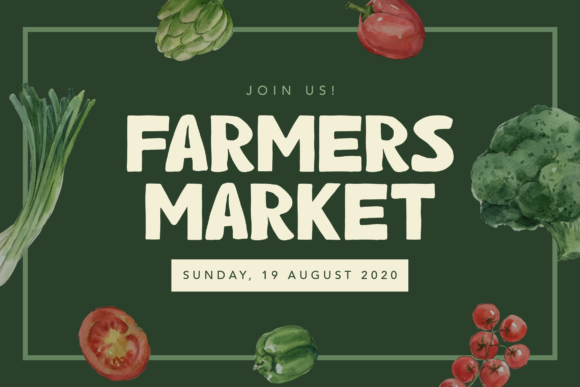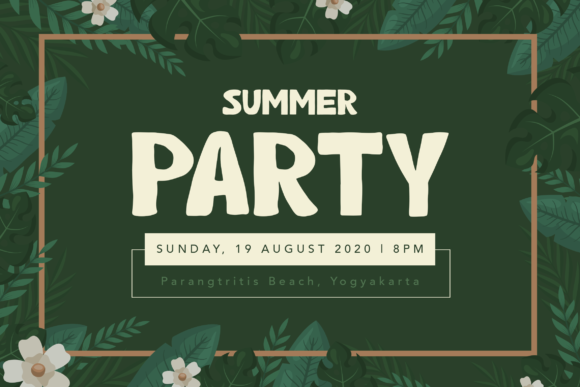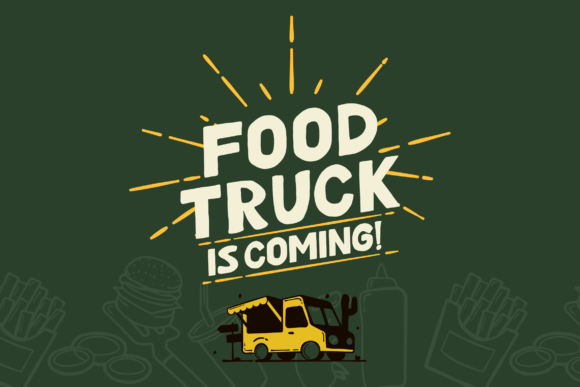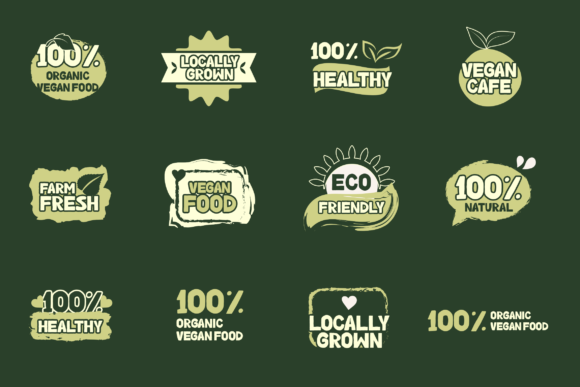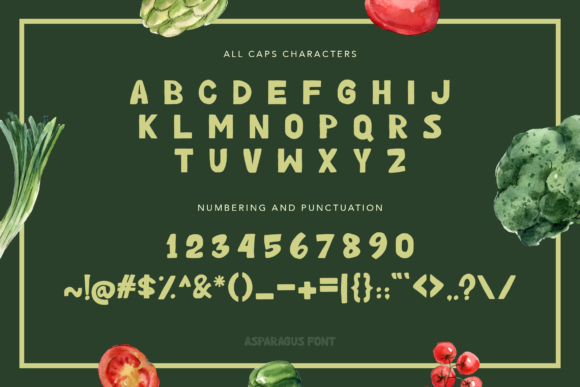
HomeScript FontsAsparagus Font Script Fonts Asparagus Font FacebookXPinterestWhatsApp Asparagus Font Poster 2 Asparagus Font Poster 3 Asparagus Font Poster 4 Asparagus Font Poster 5 Asparagus Font Poster 6 About Asparagus Font Asparagus is a soft, bold, and playful font style. It is perfectly suited for a wide variety of projects! DOWNLOAD ON CREATIVE FABRICAThis font is sold and delivered by Creative Fabrica. Font Canyon may earn a commission if you buy through this link. People also explored Lucky Gnome Boys Font Aqua Bella Canvas 3001 T Shirt Mockup Butterfly Font The Fallen Leaf Font Masbù Font Belenks Font Mellady Font Hot Lava Font Shark Font 443 0 TagsAsparagus Font Previous articleThe Majority FontNext articleWishes Font LEAVE A REPLY Cancel reply Comment: Please enter your comment! Name:* Please enter your name here Email:* You have entered an incorrect email address! Please enter your email address here Website: Save my name, email, and website in this browser for the next time I comment. Personal Use Free Sebastopol Personal Use Free Read more about this font Austins Personal Use Free Read more about this font Cheese Matcha Font Personal Use Free Read more about this font Talking on Personal Use Free Read more about this font BLOG Top 7 Google Fonts Alternatives for Faster and Privacy-Friendly Web Design (2025) Top 7 Google Fonts Alternatives for Faster and Privacy-Friendly Web Design (2025) When it comes to web typography, Google Fonts has long been the go-to... Best Fonts for T-Shirt Design – Top 2025 Picks The 10 Best Handwriting Fonts to Add Personality to Your Designs Top 10 Handwritten Fonts That Elevate Your Designs